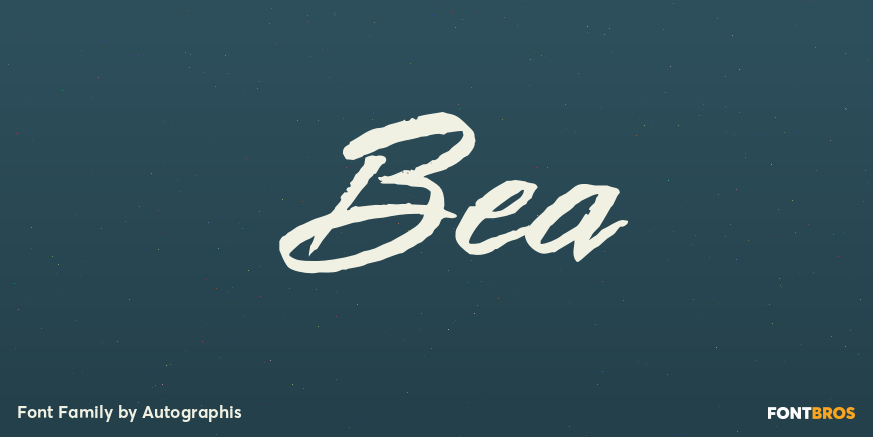
Bea
About Bea
Bea is my Racetrack-Script. I call it that, because it gives the impression of speed. No lingering around with this font. Zaaanggggg!!!